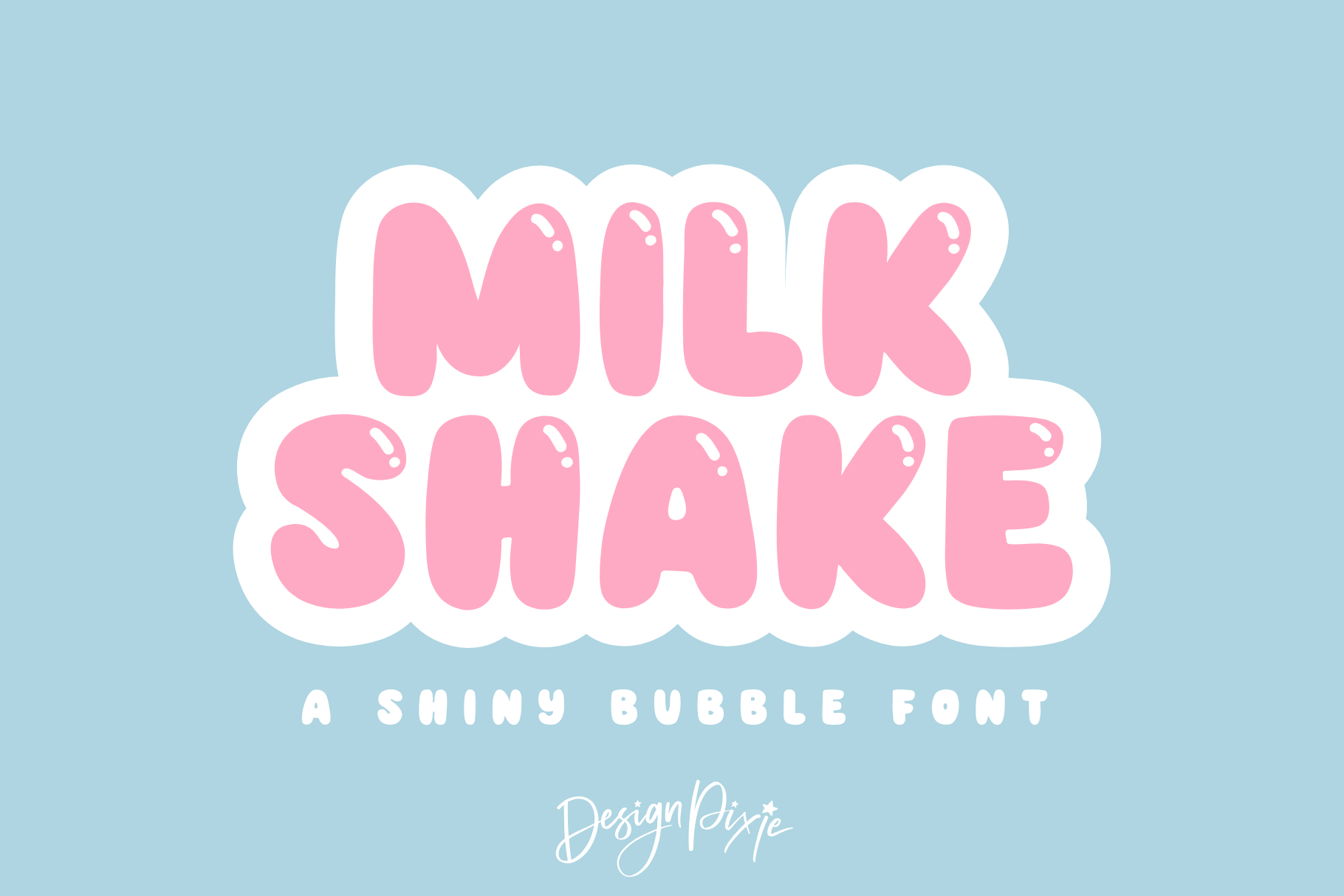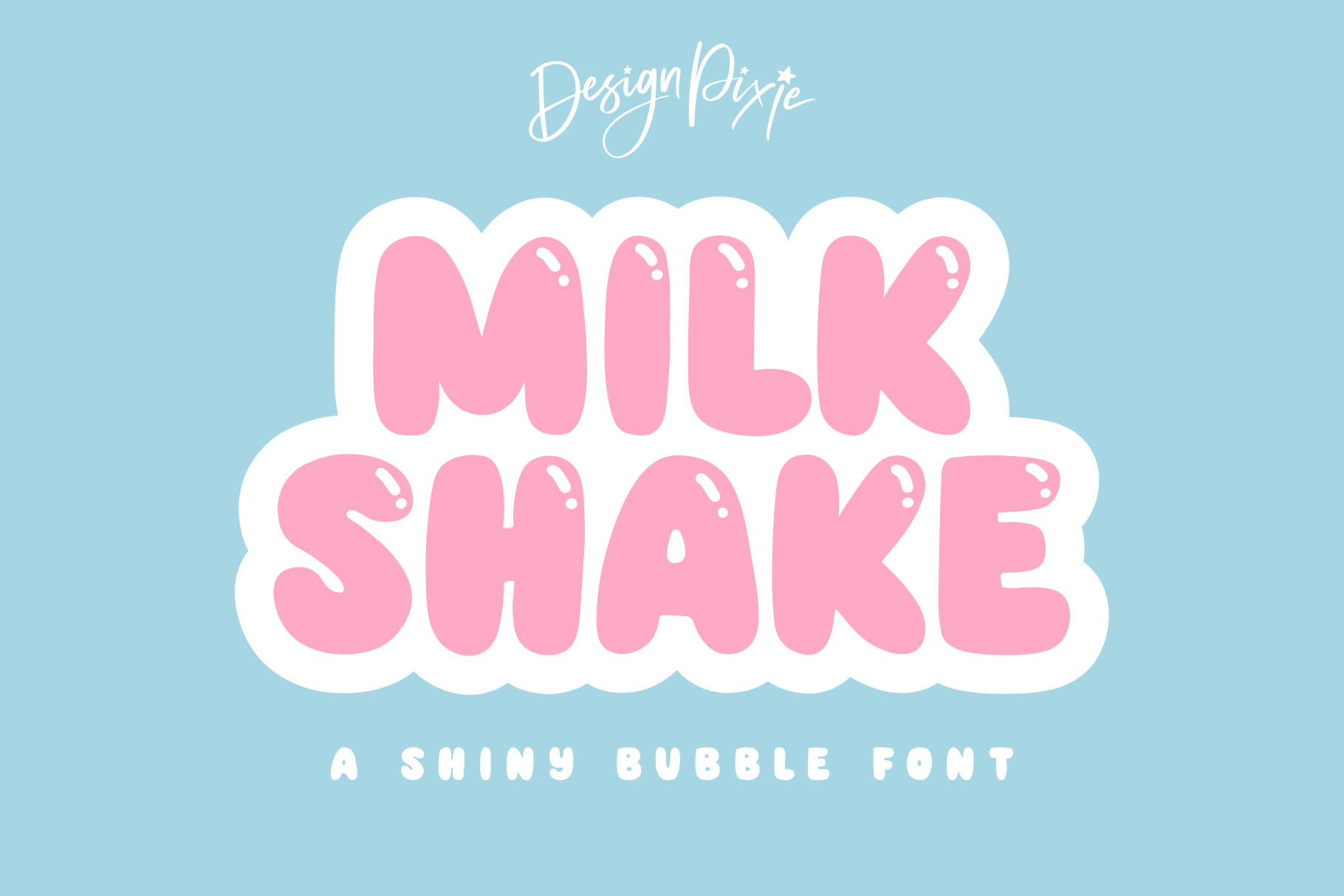
Milk Shake Font
Milk Shake is a bubble font in all caps. This shiny font can be used for Cricut, Procreate, Photoshop, Canva and more. It's a cute, bold display font in all uppercase, great for creating SVGs and prints for apparel.
Layer the font in color on the same text in white to create the shine effect, and get more creative by adding an additional bottom layer of outline to make it pop.
Bubble fonts are perfect for apparel, stickers and any designs that need words to stand out. Use for t-shirts, hoodies, tote bags, stickers and more. It’s also ideal for creating logos, branding, and social media graphics that feel fun, bold, and memorable.
- Apparel and merchandise designs
- Stickers and Cricut projects
- Logos and branding
- Social media graphics and quotes
All characters are uppercase in style. The uppercase letters on your keyboard have the shine and the lowercase are solid.